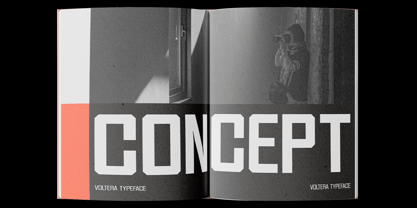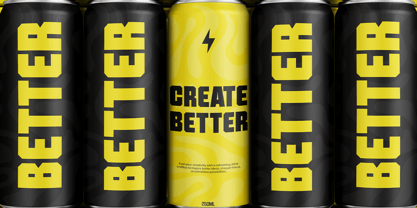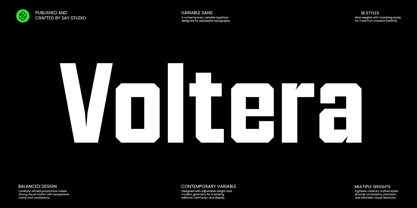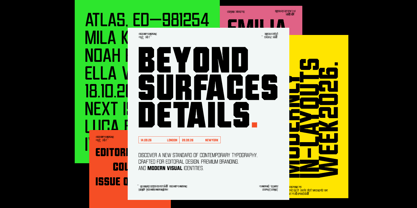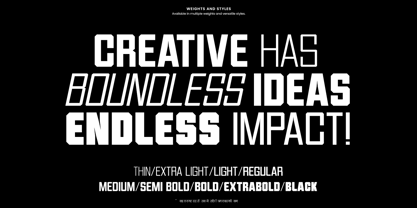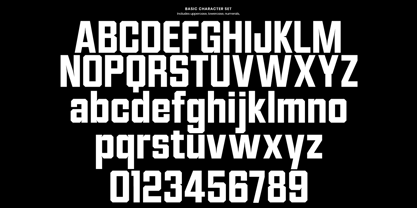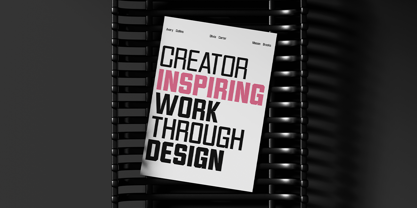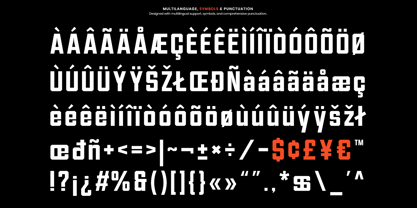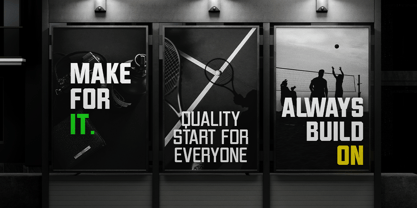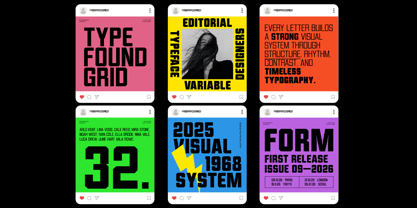
Voltera
The Voltera Font Family was designed by Mussyayin and published by Say Studio. Voltera contains 13 styles and family package options. More about this family
Voltera is a professional condensed sans serif font family crafted for designers who need bold typography with maximum impact and exceptional versatility. Featuring 9 carefully engineered weights, from Thin to Black, along with matching Italic styles, Voltera delivers a complete collection of 18 fonts that adapts effortlessly to every creative challenge. Its tall proportions, geometric construction, and clean industrial character make it an excellent choice for modern branding, editorial design, advertising, sports graphics, packaging, posters, technology, corporate identity, and digital media.
Every weight is designed to work seamlessly together, allowing you to build strong typographic hierarchies while maintaining a consistent visual identity. Use lighter weights for refined editorial layouts and user interfaces, regular styles for branding systems, or heavier weights to create powerful headlines and attention-grabbing marketing campaigns. The accompanying Italic styles add movement and emphasis, making the family even more flexible for dynamic layouts and contemporary design projects.
Voltera professionally balanced spacing for outstanding readability across print and digital platforms. Whether you're designing logos, magazines, websites, social media content, packaging, apparel, signage, or corporate presentations, Voltera provides the complete typographic system needed to create bold, modern, and professional visual communication.